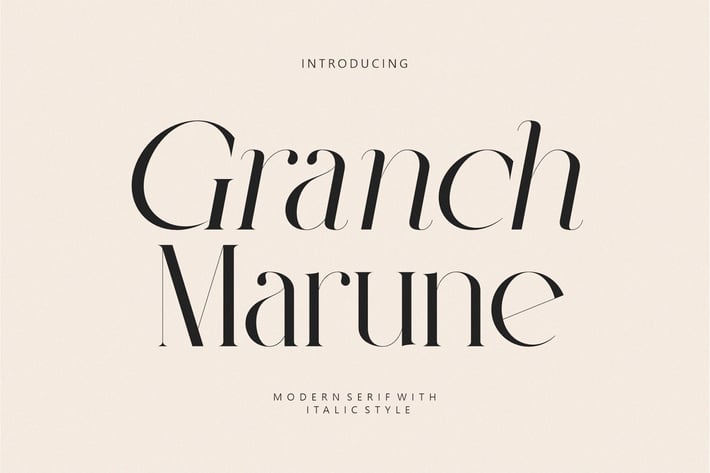
Granch Marune Modern Serif Typeface
Granch Marune ModernSerif Typeface inspired by the famous minimalist logo perfect for the purposes of designing templates, brochures, videos, advertising branding, logos, invitation, layout design, elegant crafting, beauty design and other
- italic glyphs
- Standard glyphs
- International Accent